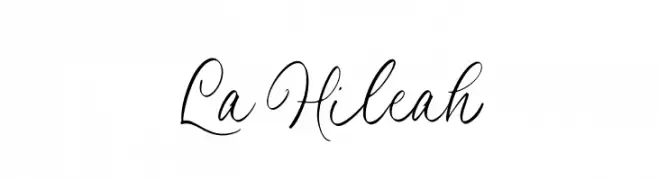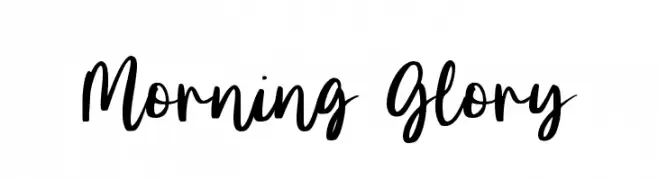
A bold, expressive brush-style font with a dynamic, hand-painted appearance.
A bold, claw-like font with sharp, jagged edges for dramatic impact.
A sophisticated script font with elegant, flowing cursive strokes.
A cursive script font with elegant, flowing strokes and decorative flourishes.
A decorative, cursive script font with a flowing, handwritten style.
An elegant and decorative script font with intricate swashes.
A bold, playful handwritten font with thick strokes and dynamic curves.
A bold, expressive handwritten font with fluid, cursive strokes.
A bold, flowing script font with a playful, hand-drawn style.
A playful, casual handwritten font with dynamic curves and varying stroke widths.